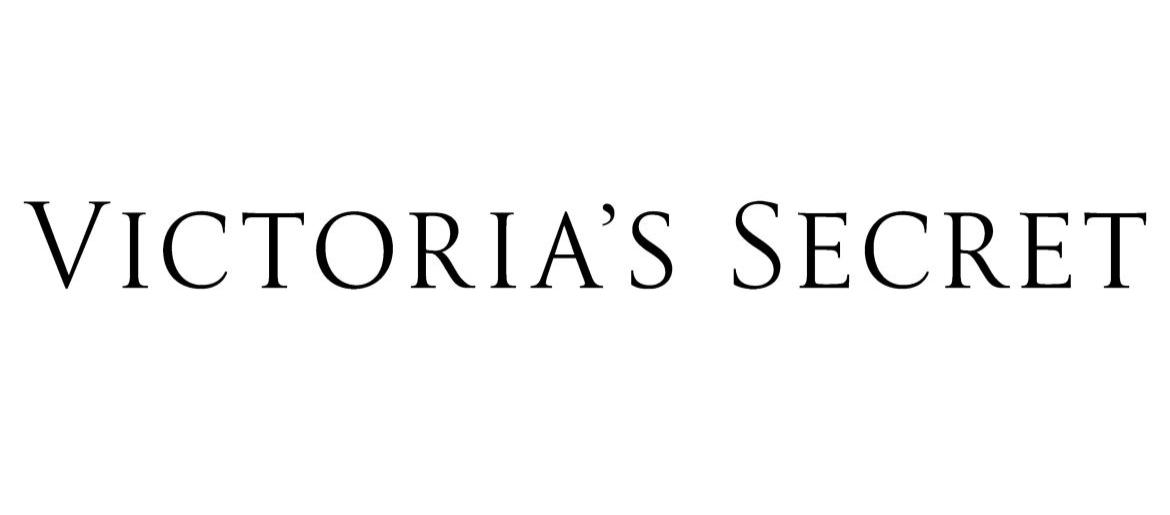
Victoria’s Secret Font
What Font is Victoria’s Secret?
The Victoria’s Secret font is most likely Trajan Pro 3 Regular, a commercial typeface designed by Carol Twombly and Robert Slimbach. Its elegant serif structure, classical proportions, and refined letterforms perfectly match the brand’s luxurious, feminine identity. Since Trajan Pro 3 is a premium font, we also found a free alternative that delivers a similar timeless and graceful style, making it a great choice for designers who want to recreate the Victoria’s Secret aesthetic without using the commercial typeface.
About Victoria’s Secret
Victoria’s Secret is one of the most recognizable lingerie and beauty brands in the world, founded in 1977 by Roy Raymond. Built on a vision of bringing elegance and sophistication to intimate apparel, the brand quickly became a global fashion powerhouse. Known for its glamorous fashion shows, iconic Angels, and distinctive blend of sensuality and luxury, Victoria’s Secret shaped pop culture for decades. In recent years, the company has shifted toward more inclusive representation and modern branding, aiming to evolve with contemporary audiences. Despite changing trends, Victoria’s Secret remains a leading name in lingerie, fragrance, and beauty, recognized for its signature romantic style and strong visual identity.